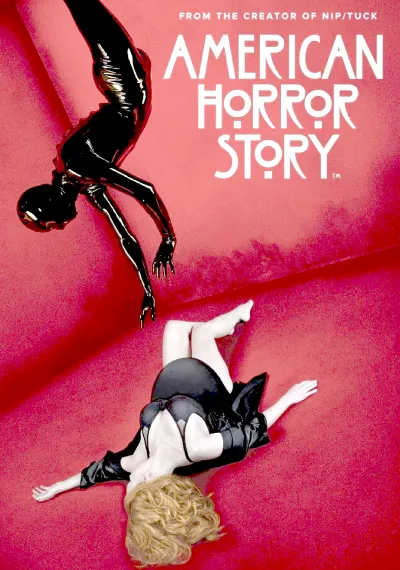
What is American Horror Story Font?. In short, it’s also called or searched as the AHS font. This font was inspired by the famous American anthology horror television series “American Horror Story” logo titling.
American Horror Story (AHS) is an anthology television series that presents different horror-themed stories with new settings and characters each season. The show’s logo features a unique font that resembles ITC Willow, which is a modified version of the original font.
In conclusion, American Horror Story is a popular and award-winning TV series that has a unique and spooky font for its logo. The font is a modified version of ITC Willow, which has a Viennese Secessionist style. There are also other fonts that are inspired by the American Horror Story font, but they have their own variations and features. You can use these fonts to add some horror and mystery to your projects.